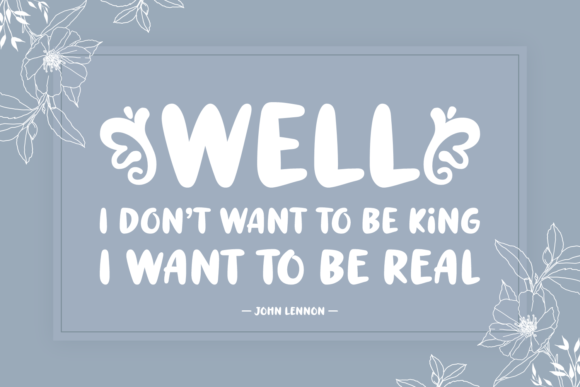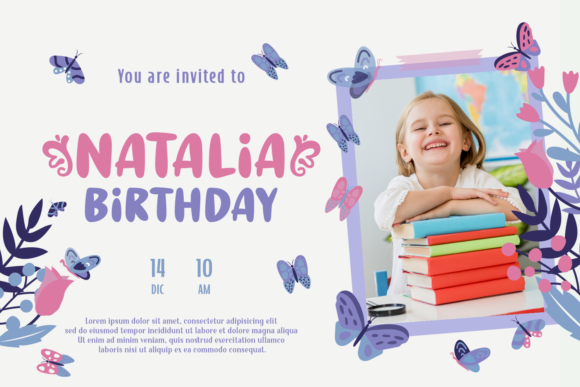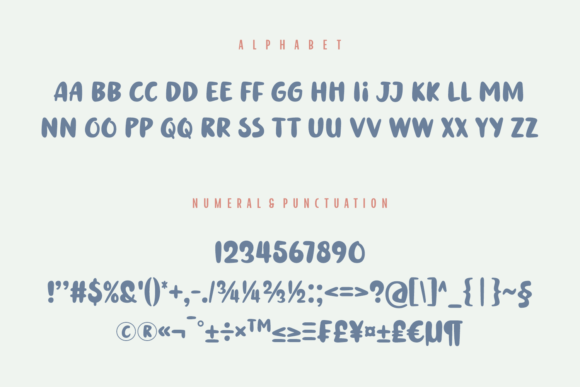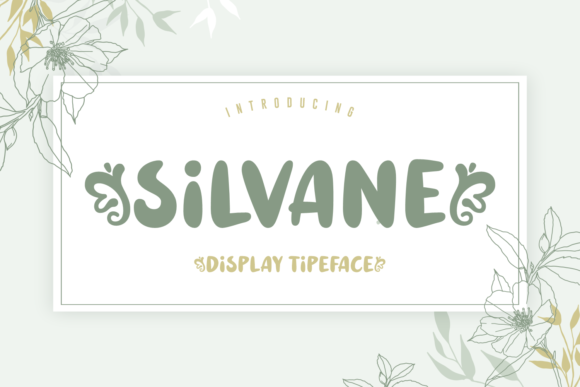
Introduction to Silvane Font
Silvane is a playful and paint brushed display font.
Whether you are using it for cartoon-related designs, children games, quotes, titles, brand names, book covers, posters, or just any creation that requires a touch of joy, this font is a great choice .